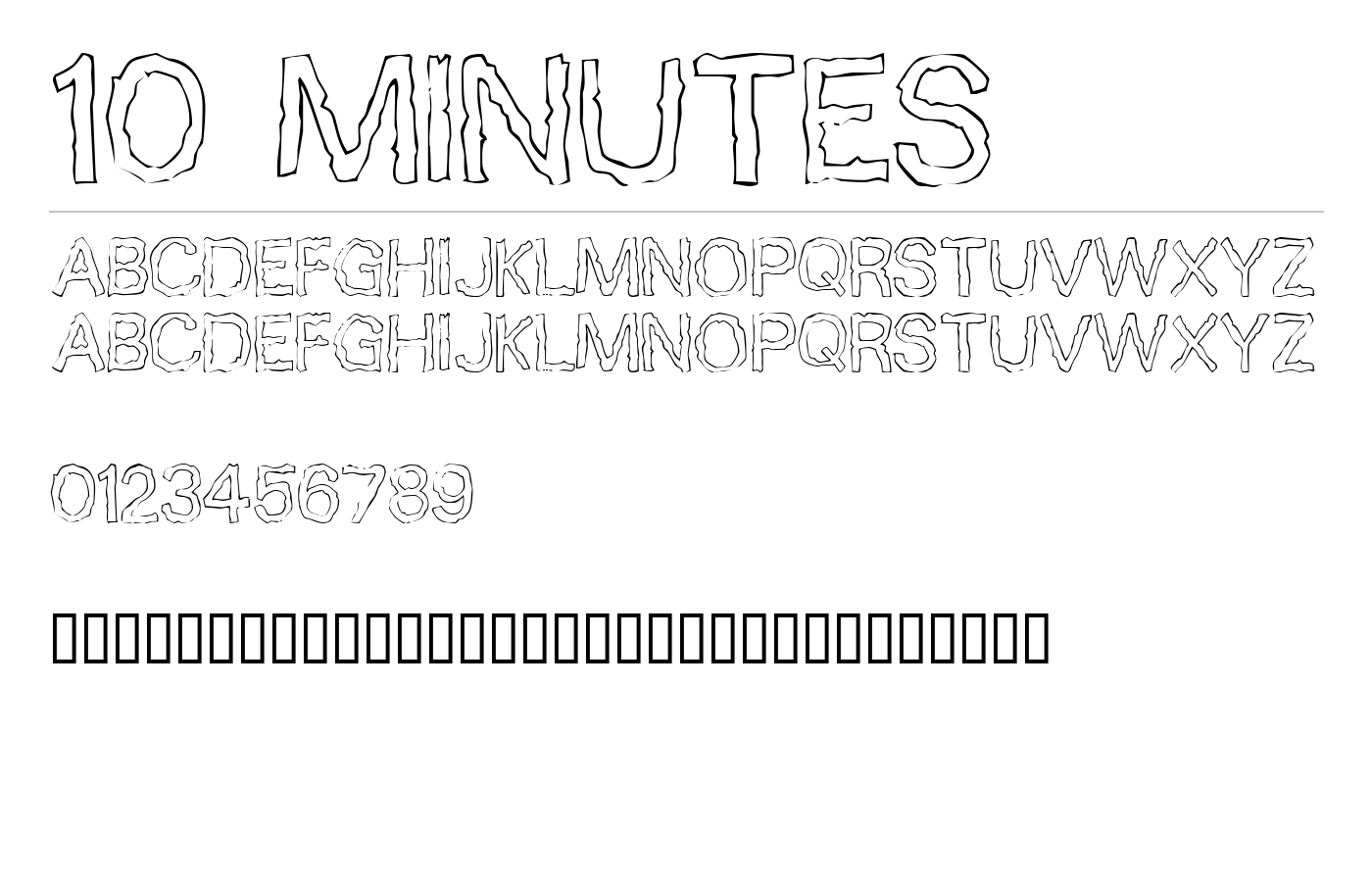
10 Minutes Font is a quirky, hand-drawn sans serif typeface featuring irregular, jagged outlines that give it a playful and energetic feel. Its uppercase letters and unique rough stroke details make it ideal for casual, creative projects looking to convey a sense of spontaneity and fun. This font works best for headlines, posters, branding, and designs needing an informal, artistic touch.
10 Minutes Font